Bfgs.Studio
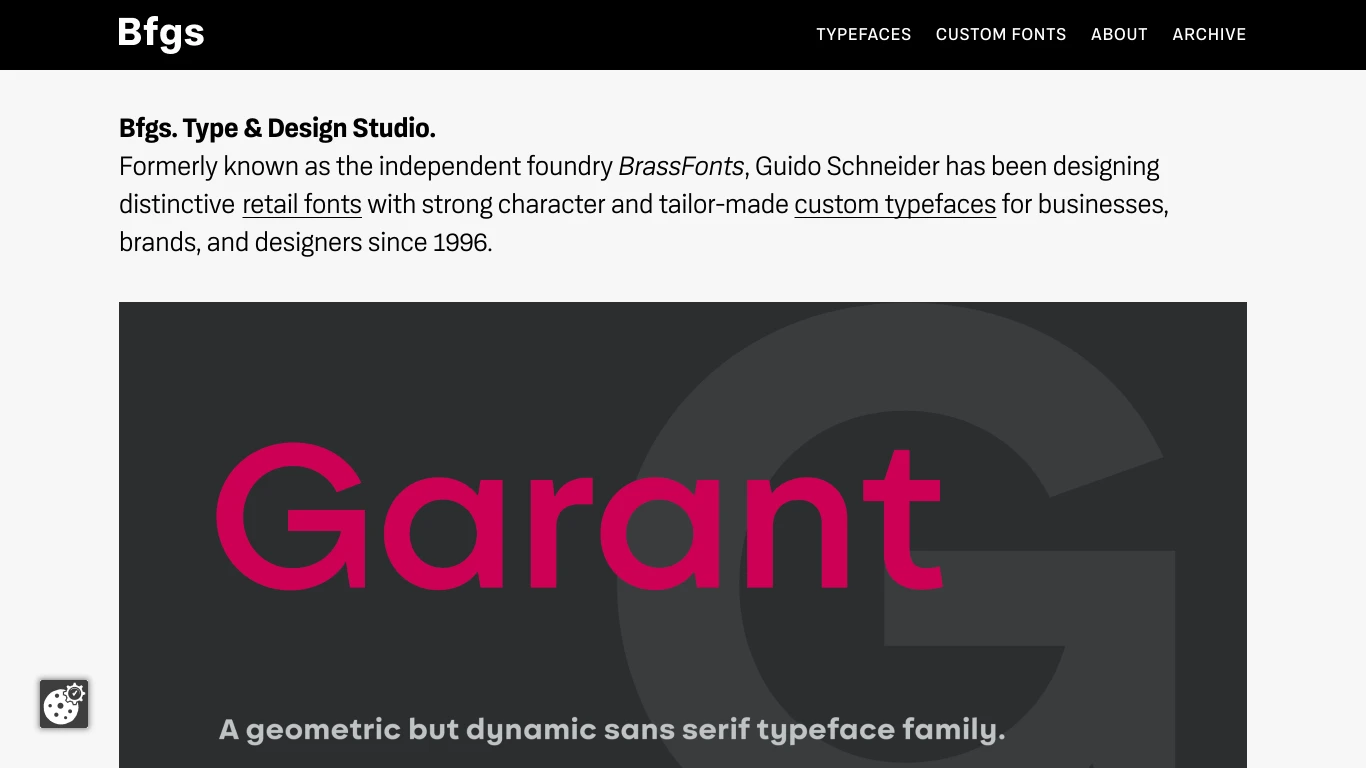
Germany
1966
Bfgs. Type & Design Studio, formerly known as BrassFonts, is an independent type foundry specializing in creating distinctive retail fonts and custom typefaces. Established in 1996 by Guido Schneider, Hartmut Schaarschmidt, René Tillmann, and Rolf Zaremba, the studio has consistently offered high-quality, independent alternatives to typographic monotony. Their portfolio includes both experimental display fonts and comprehensive typeface families suitable for corporate design applications. Notable typefaces include BF Konkret Grotesk, a squarish and idiosyncratic grotesk, and BF Garant, a geometric yet dynamic sans-serif family.